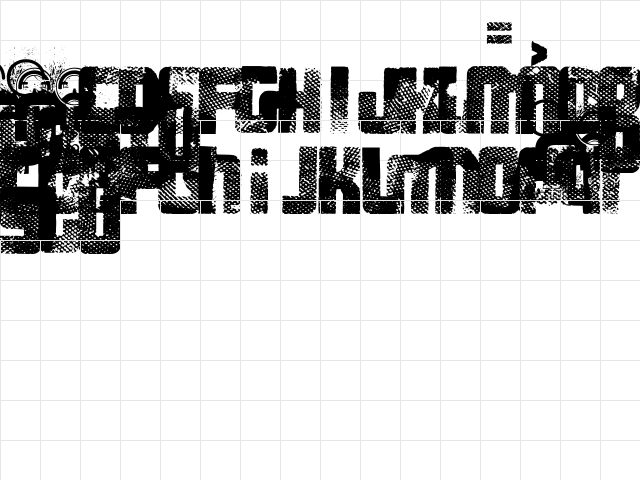
FT 3 the hard way Overrun Regular
Design Context for FT 3 the hard way Overrun Typeface
FT 3 the hard way Overrun is a composed and adaptable typeface that performs quietly and consistently across a wide range of design contexts.